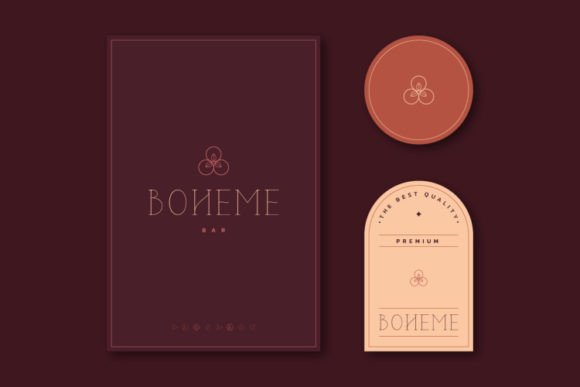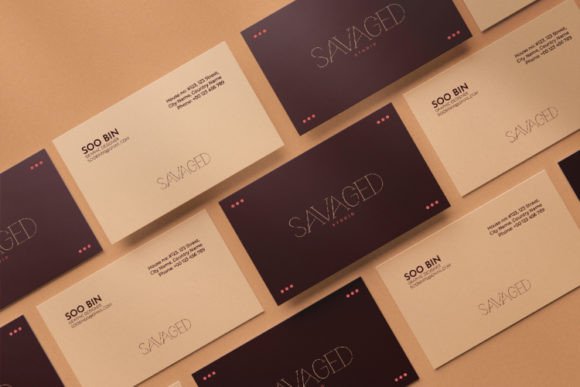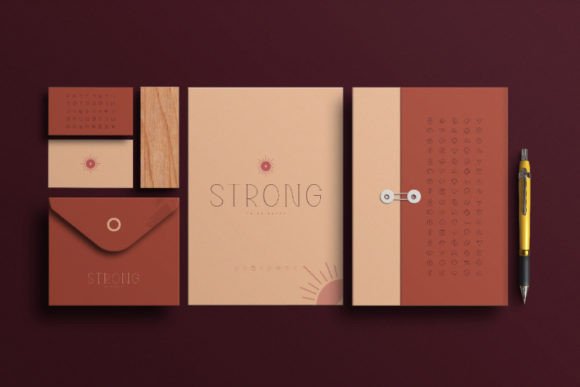
Introduction to Serpens Font
Have you ever found yourself stuck in a creative rut, unable to express the elegance and sophistication you envision for your design project? It’s a frustrating moment that can strike even the most seasoned designers. But what if I told you there’s a secret to unlocking that perfect balance of style and refinement? Enter the Serpens Font, a game-changing design resource that will breathe new life into your creative endeavors.
This stunning display font boasts a minimalist aesthetic that exudes luxury and sophistication, making it the perfect addition to any high-end design project. With its sleek lines and elegant curves, Serpens Font adds a touch of sophistication that’s hard to replicate with other fonts.
Serpens Font
- High-quality, professional font suitable for various creative projects, including graphic design, digital art, and publishing.
- Features a transparent background, making it easy to use in designs that require a subtle, non-intrusive font.
- Includes a range of weights and styles, allowing users to customize their designs to suit their specific needs.
- Designed with precision and attention to detail, ensuring a crisp, high-resolution appearance at 300 DPI.
- Perfect for designers and artists looking for a unique, high-quality design resource to elevate their creative projects.
Honest Review: Serpens Font
I recently stumbled upon the Serpens Font, and I must say, it’s a game-changer for any design project. This free download is a high-quality design resource that can elevate your creative project to the next level. The font’s unique, modern design makes it perfect for various applications, from branding to editorial content.
- ✨ The font’s transparency options allow for a seamless integration with various background designs, making it perfect for projects that require a transparent background.
- ✨ The high quality of the font ensures that it will look great on any screen, whether it’s a website, social media, or print materials.
- ⚠️ The font may not be suitable for very small text sizes, as it can become difficult to read.
- ⚠️ Some users may find the font too modern or trendy, which may not be suitable for more conservative design projects.
Use it on a transparent background to create a sleek and modern look.
Combine it with other design elements to create a unique and eye-catching design.
Experiment with different font sizes and styles to create visual interest.
The Serpens Font is perfect for:
Designing logos and branding materials.
Creating social media graphics and